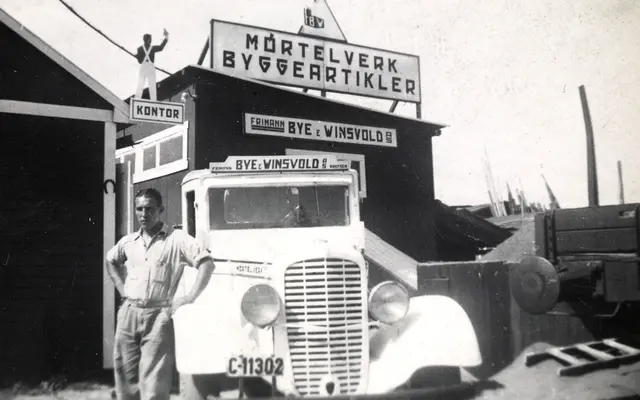
A two-weight monospaced display font drawn from photographs of a 1920s–30s Oslo construction company's hand-painted signage.
Arve Båtevik derived Bygg from lettering found in archive photographs of Frimann Bye & Winsvold AS, a mortar and construction materials supplier that operated in Oslo during the interwar period. It began as part of the 'Skrift i Oslo' exhibition, which documented the city's sign painting tradition, and eventually grew into a complete functional alphabet. The result is a fixed-width display face covering Western European, Nordic and basic Latin languages, available in two weights.
Bygg is a monospaced display typeface derived from hand-painted construction company signage; its fixed-width structure and display origins place it squarely in the display mono subcategory.